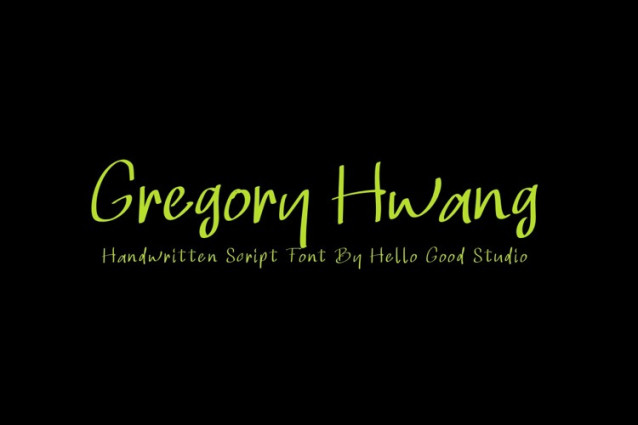
Gregory Hwang Font
Gregory Hwang Font is a simple and friendly handwritten font. Its natural and unique style makes it incredibly fitting to a large pool of designs. The only limit is your imagination!